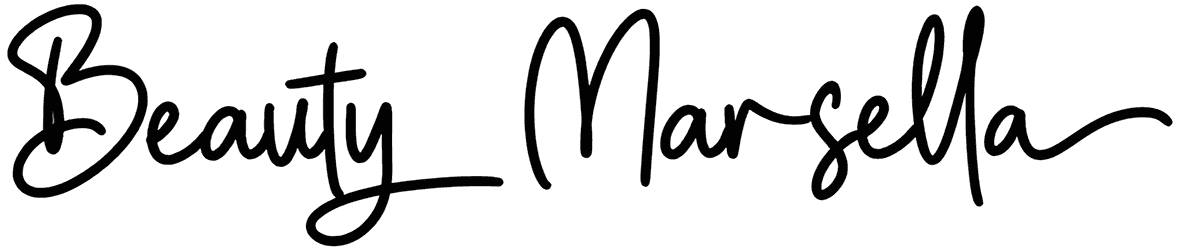
Beauty Marsella Font
Beauty Marsella is a handwritten script font with calligraphic characteristics, giving it an exquisite and distinctive appearance. It looks great on practically any design project, including lettering, logo design, invitations and stationery, web design, and more.